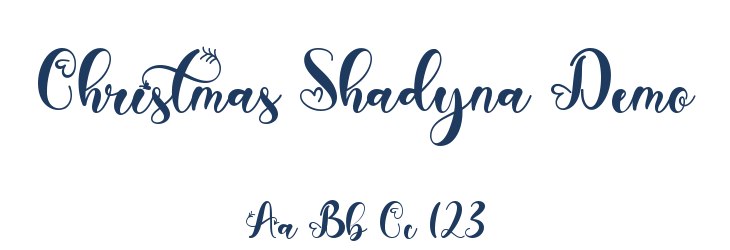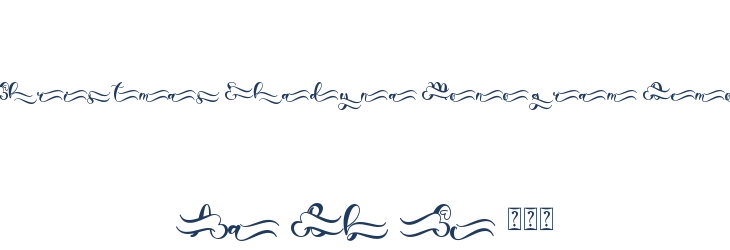
Shady Characters Medium Font
A bold, decorative font with a unique shadow effect for a three-dimensional look.
Shady Lane Font
Font by www.paintblackeditions.org
A bold, decorative font with a shadow effect and hand-drawn aesthetic.
ShadyWalk Font
A bold, distressed font with a hand-drawn, graffiti-like style.
So Shady Font
Font by Apostrophic Lab
A bold, decorative font with a shadow effect and outlined characters.
Shadyspeed Free Regular Font
A fluid and elegant script font with a modern handwritten style.
Shady Lady Font
A bold, stencil-style font with angular cuts and shadow effects.
Shady Butter Font
A lively, handwritten-style font with dynamic strokes and a casual vibe.
Christmas Shadyna Monogram Demo Font
Ornate script font with extensive flourishes and a festive appearance.
Christmas Shadyna Demo Font
Whimsical, decorative script with festive swashes and heart accents.